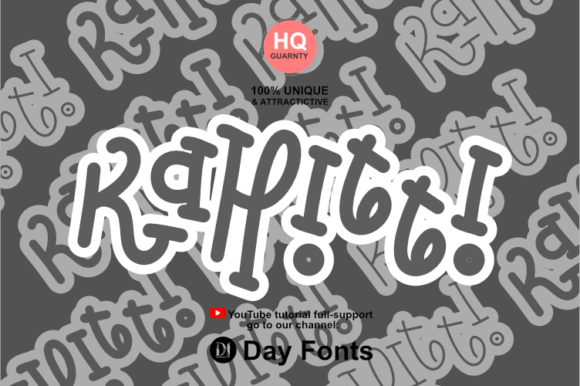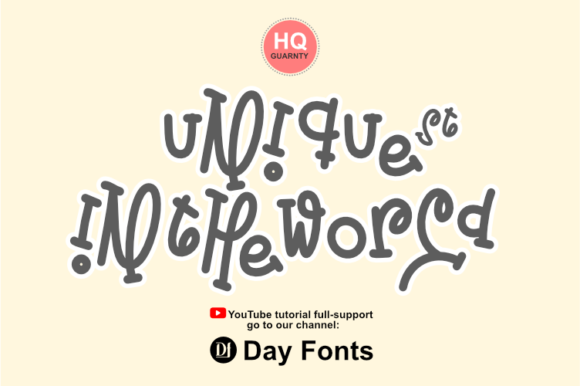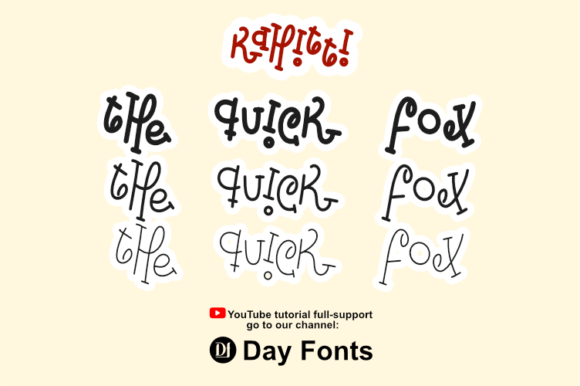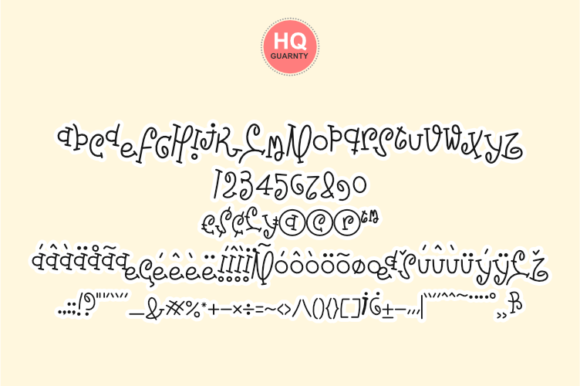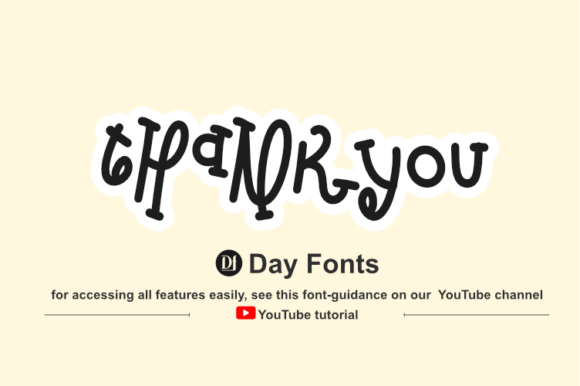
Introduction to Kahitti Font
Imagine you’re working on a creative project, and you’re stuck on finding the perfect font to elevate it to the next level. You scroll through your design resources, searching for that one special something that will make your project stand out. And then, you stumble upon it – the Kahitti Font.
This high-quality display font is not only quirky and fun but also sophisticated and elegant. Its whimsical nature makes it perfect for adding a touch of personality to your designs. Whether you’re working on a project with a transparent background or a bold, eye-catching graphic, the Kahitti Font is sure to brighten up your design.
As a valuable resource for designers, the Kahitti Font offers endless possibilities for creative expression. With its unique style and free download option, it’s the perfect addition to any design project, guaranteed to deliver impressive results.
Key Features of Kahitti Font
- High-quality design: The Kahitti Font is designed with attention to detail, making it perfect for creative projects that require a professional touch.
- Unique characteristics: The Kahitti Font features a unique, modern design aesthetic that is sure to add a touch of creativity to any project.
Honest Review: Kahitti Font
I recently came across the Kahitti Font and was excited to give it a try for my next creative project. The first thing I noticed was the high quality of the font, it’s crisp and clear, making it perfect for any design.
The Kahitti Font is a great resource for designers who are looking for a unique and creative font to use in their projects. One of the standout features of this font is the transparent background, which makes it easy to customize and use in different design contexts.
- ✨ High quality and crisp design
- ✨ Unique and creative design style
- ✨ Easy to customize with transparent background
- ⚠️ Limited font sizes and styles available
- ⚠️ Not suitable for complex or multi-line text
Overall, I’m impressed with the Kahitti Font and would definitely recommend it to designers who are looking for a high-quality and unique font to use in their creative projects. The transparent background and free download make it a great resource for designers of all levels.
Kahitti Font
The Kahitti Font is a versatile and creative design resource that offers a high-quality, modern aesthetic. With its unique style and transparent background, it’s perfect for various design projects.
Tips for Getting the Most Out of Kahitti Font
To get the most out of Kahitti Font, experiment with different font sizes, colors, and combinations. You can also use it in conjunction with other design elements, such as images and graphics, to create a visually appealing design.
Common Use Cases for Kahitti Font
Kahitti Font is ideal for various design projects, including logos, branding materials, social media graphics, and presentations. Its high-quality features and transparent background make it a popular choice among designers and creatives.